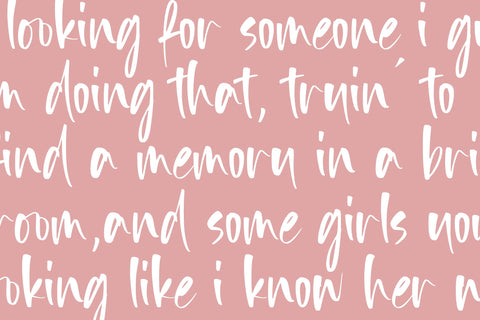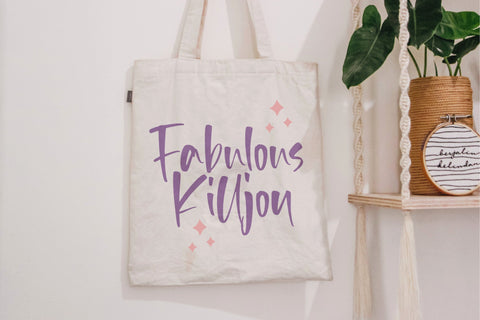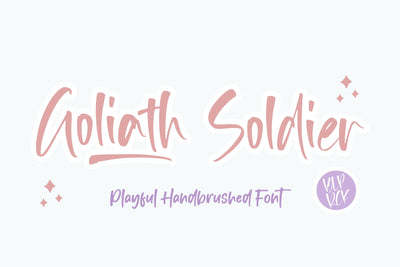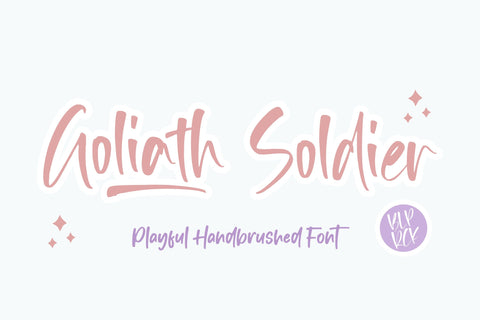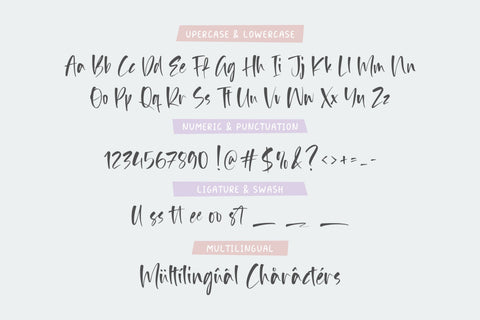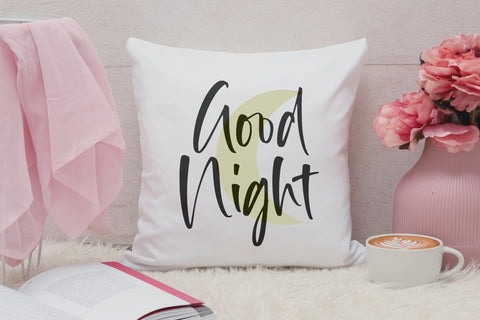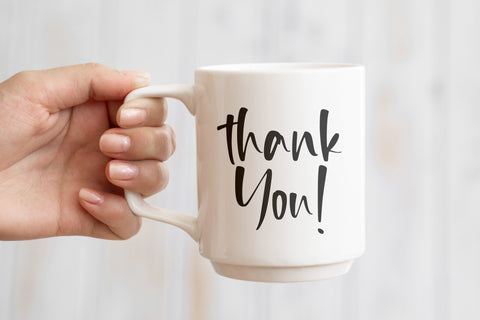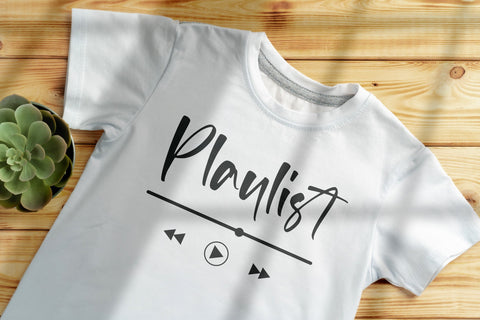
Goliath Soldier Playful Handbrushed Font
Goliath Soldier is a Playful Handbrushed Font.
Goliath Soldier feels equally charming and chic. It looks fun on wedding invitations, thank you cards, quotes, greeting cards, logos, business cards and every other design which needs a customized touch.
- Ligatures & Swash